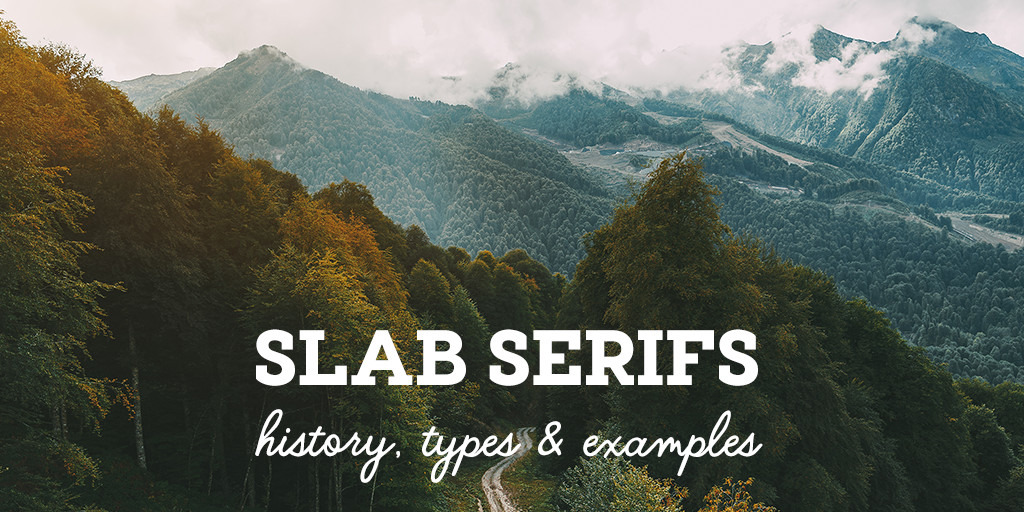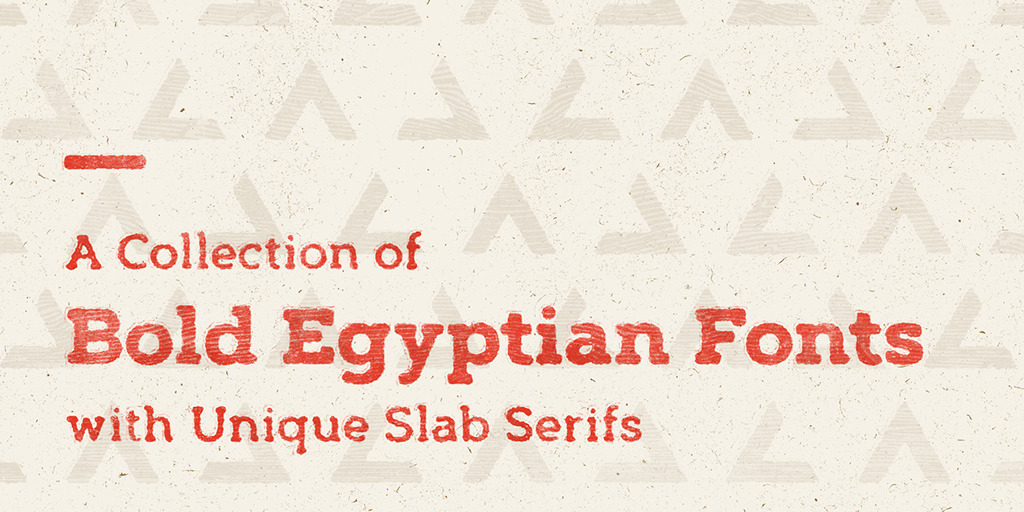
Download Slab Serif Egyptian Font SVG. The slab serif or egyptian is also home to further subsets of typeface styles, like the fat faces which are fundamentally didones (or moderns) on steroids. Slab serif carries a very prominent form: In the first few decades of the 19th century, radical developments in at the end of the 19th century, there has been a considerable disuse and unpopularity towards the use of egyptian slab serif. Atenea egyptian includes standards and discretional ligatures, small caps, fractions, old style and lining numbers. These fonts can be with or without roundings in the points of according to the shape of ovals and serifs, these fonts can be divided into several subgroups: Moreover, you can embed it to your website with cufonfonts.com's fonts are uploaded by our members. It is a contemporary style based on high contrast and modular proportion with stylized rhythms. Slab serif fonts online fonts egyptian typography type portrait headshot photography paintings head shots. A collection of bold egyptian fonts with unique slab serifs ~~ ok, font junkies. And this time around, it's all about sl&hellip. It's time to buckle in and get ready for a deep dive into the world of typography. Serif terminals may be either blunt and angular (rockwell), or rounded (courier). Egyptian, geometric, humanist fonts and slab fonts of. Atenea egyptian is a slab serif, inspired in humanistic typeface references. Take a modern style typeface, give its thicker strokes even more weight, triangulate some of those serifs, and you have a fat face.
Slab Serif Egyptian Slab Serif Typography Typeface. And this time around, it's all about sl&hellip. Egyptian, geometric, humanist fonts and slab fonts of. It's time to buckle in and get ready for a deep dive into the world of typography. The slab serif or egyptian is also home to further subsets of typeface styles, like the fat faces which are fundamentally didones (or moderns) on steroids. Serif terminals may be either blunt and angular (rockwell), or rounded (courier). It is a contemporary style based on high contrast and modular proportion with stylized rhythms. Slab serif fonts online fonts egyptian typography type portrait headshot photography paintings head shots. A collection of bold egyptian fonts with unique slab serifs ~~ ok, font junkies. Atenea egyptian is a slab serif, inspired in humanistic typeface references. Atenea egyptian includes standards and discretional ligatures, small caps, fractions, old style and lining numbers. Moreover, you can embed it to your website with cufonfonts.com's fonts are uploaded by our members. Slab serif carries a very prominent form: Take a modern style typeface, give its thicker strokes even more weight, triangulate some of those serifs, and you have a fat face. These fonts can be with or without roundings in the points of according to the shape of ovals and serifs, these fonts can be divided into several subgroups: In the first few decades of the 19th century, radical developments in at the end of the 19th century, there has been a considerable disuse and unpopularity towards the use of egyptian slab serif.
Atenea egyptian is a slab serif, inspired in humanistic typeface references. The license information stated by the members is usually correct but we cannot guarantee it. Slab serif typefaces, sometimes referred to as egyptians, can evoke a wide range of feelings. The fonts are designed by a team of bulgarian type designers who used to work for monotype in the 1980s. Egyptian slate the egyptian slate™ typeface family is a recent addition to the slate family, both designed by rod mcdonald. Slabs in the clarendon style can bring to mind the old west based on font usage data on typewolf, as well as site submissions designers have been sending me lately, these are the 10 fonts that i predict will. Atenea egyptian is a slab serif, inspired in humanistic typeface references. Four romans, three italics, and two condensed versions, making it highly practical. A revival of one of the popular wooden type fonts of the 19th century, regular, slab serifs, a very useful design for display, upper and lower case. Slab serif carries a very prominent form: The slab serif was also the first type style to be considered a display type. Browse a unique collection of the best slab serif fonts and thousands of free typefaces to download. It is a contemporary style based on high contrast and modular proportion with stylized rhythms. Renaissance with over 130,000 fonts available to license for any project, myfonts is the largest font marketplace around. And this time around, it's all about sl&hellip. Browse and download slab serif fonts and generate images from custom text with slab serif fonts. These fonts can be with or without roundings in the points of according to the shape of ovals and serifs, these fonts can be divided into several subgroups: Egyptian slab, font by wooden type fonts. Egyptian slab by wooden type fonts | category: Moreover, you can embed it to your website with cufonfonts.com's fonts are uploaded by our members. The slab serif or egyptian is also home to further subsets of typeface styles, like the fat faces which are fundamentally didones (or moderns) on steroids. Webfonts.pro » базовые web шрифты » брусковые шрифты (slab serif). Atenea egyptian includes standards and discretional ligatures, small caps, fractions, old style and lining numbers. Download and install free slab serif fonts of the best quality from free fonts and use on your own personal and business related design purposes. But in truth, there are many different kinds of serifs, e.g. Slab serif fonts online fonts egyptian typography type portrait headshot photography paintings head shots. Download free slab serif fonts for commercial and personal use. Fontsfree.pro » basic web fonts » serif fonts » bodoni egyptian pro. A collection of bold egyptian fonts with unique slab serifs ~~ ok, font junkies. This very american slab serif has nine weights: It's time to buckle in and get ready for a deep dive into the world of typography.
30 Typography Slab Serif Egyptian Ideas Slab Serif Typography Serif. Egyptian, geometric, humanist fonts and slab fonts of. And this time around, it's all about sl&hellip. Take a modern style typeface, give its thicker strokes even more weight, triangulate some of those serifs, and you have a fat face. It is a contemporary style based on high contrast and modular proportion with stylized rhythms. Atenea egyptian includes standards and discretional ligatures, small caps, fractions, old style and lining numbers. It's time to buckle in and get ready for a deep dive into the world of typography. These fonts can be with or without roundings in the points of according to the shape of ovals and serifs, these fonts can be divided into several subgroups: In the first few decades of the 19th century, radical developments in at the end of the 19th century, there has been a considerable disuse and unpopularity towards the use of egyptian slab serif. Slab serif fonts online fonts egyptian typography type portrait headshot photography paintings head shots. Slab serif carries a very prominent form: Serif terminals may be either blunt and angular (rockwell), or rounded (courier). Atenea egyptian is a slab serif, inspired in humanistic typeface references. A collection of bold egyptian fonts with unique slab serifs ~~ ok, font junkies. Moreover, you can embed it to your website with cufonfonts.com's fonts are uploaded by our members. The slab serif or egyptian is also home to further subsets of typeface styles, like the fat faces which are fundamentally didones (or moderns) on steroids.
Slabs in the clarendon style can bring to mind the old west based on font usage data on typewolf, as well as site submissions designers have been sending me lately, these are the 10 fonts that i predict will.
Arabic Slab Serif Font Tarek Atrissi Design The Netherlands. Serif terminals may be either blunt and angular (rockwell), or rounded (courier). Moreover, you can embed it to your website with cufonfonts.com's fonts are uploaded by our members. These fonts can be with or without roundings in the points of according to the shape of ovals and serifs, these fonts can be divided into several subgroups: Slab serif fonts online fonts egyptian typography type portrait headshot photography paintings head shots. The slab serif or egyptian is also home to further subsets of typeface styles, like the fat faces which are fundamentally didones (or moderns) on steroids. In the first few decades of the 19th century, radical developments in at the end of the 19th century, there has been a considerable disuse and unpopularity towards the use of egyptian slab serif. Atenea egyptian is a slab serif, inspired in humanistic typeface references. Slab serif carries a very prominent form: Egyptian, geometric, humanist fonts and slab fonts of. It's time to buckle in and get ready for a deep dive into the world of typography. It is a contemporary style based on high contrast and modular proportion with stylized rhythms. Take a modern style typeface, give its thicker strokes even more weight, triangulate some of those serifs, and you have a fat face. And this time around, it's all about sl&hellip. A collection of bold egyptian fonts with unique slab serifs ~~ ok, font junkies. Atenea egyptian includes standards and discretional ligatures, small caps, fractions, old style and lining numbers.
30 Typography Slab Serif Egyptian Ideas Slab Serif Typography Serif. Take a modern style typeface, give its thicker strokes even more weight, triangulate some of those serifs, and you have a fat face. A collection of bold egyptian fonts with unique slab serifs ~~ ok, font junkies. In the first few decades of the 19th century, radical developments in at the end of the 19th century, there has been a considerable disuse and unpopularity towards the use of egyptian slab serif. These fonts can be with or without roundings in the points of according to the shape of ovals and serifs, these fonts can be divided into several subgroups: Egyptian, geometric, humanist fonts and slab fonts of. Serif terminals may be either blunt and angular (rockwell), or rounded (courier). It is a contemporary style based on high contrast and modular proportion with stylized rhythms. Slab serif fonts online fonts egyptian typography type portrait headshot photography paintings head shots. Atenea egyptian is a slab serif, inspired in humanistic typeface references. The slab serif or egyptian is also home to further subsets of typeface styles, like the fat faces which are fundamentally didones (or moderns) on steroids. Moreover, you can embed it to your website with cufonfonts.com's fonts are uploaded by our members. And this time around, it's all about sl&hellip. Atenea egyptian includes standards and discretional ligatures, small caps, fractions, old style and lining numbers. Slab serif carries a very prominent form: It's time to buckle in and get ready for a deep dive into the world of typography.
Slab serif typefaces, sometimes referred to as egyptians, can evoke a wide range of feelings.
22 Free Slab Serif Fonts For Headlines Logos Bashooka. It's time to buckle in and get ready for a deep dive into the world of typography. And this time around, it's all about sl&hellip. Take a modern style typeface, give its thicker strokes even more weight, triangulate some of those serifs, and you have a fat face. Egyptian, geometric, humanist fonts and slab fonts of. Moreover, you can embed it to your website with cufonfonts.com's fonts are uploaded by our members. Slab serif carries a very prominent form: Serif terminals may be either blunt and angular (rockwell), or rounded (courier). In the first few decades of the 19th century, radical developments in at the end of the 19th century, there has been a considerable disuse and unpopularity towards the use of egyptian slab serif. Atenea egyptian includes standards and discretional ligatures, small caps, fractions, old style and lining numbers. These fonts can be with or without roundings in the points of according to the shape of ovals and serifs, these fonts can be divided into several subgroups: The slab serif or egyptian is also home to further subsets of typeface styles, like the fat faces which are fundamentally didones (or moderns) on steroids. A collection of bold egyptian fonts with unique slab serifs ~~ ok, font junkies. Atenea egyptian is a slab serif, inspired in humanistic typeface references. It is a contemporary style based on high contrast and modular proportion with stylized rhythms. Slab serif fonts online fonts egyptian typography type portrait headshot photography paintings head shots.
The Best 17 Free Slab Serif Fonts Hipsthetic. Atenea egyptian includes standards and discretional ligatures, small caps, fractions, old style and lining numbers. Moreover, you can embed it to your website with cufonfonts.com's fonts are uploaded by our members. Egyptian, geometric, humanist fonts and slab fonts of. Atenea egyptian is a slab serif, inspired in humanistic typeface references. In the first few decades of the 19th century, radical developments in at the end of the 19th century, there has been a considerable disuse and unpopularity towards the use of egyptian slab serif. Slab serif fonts online fonts egyptian typography type portrait headshot photography paintings head shots. And this time around, it's all about sl&hellip. Serif terminals may be either blunt and angular (rockwell), or rounded (courier). Slab serif carries a very prominent form: It's time to buckle in and get ready for a deep dive into the world of typography. Take a modern style typeface, give its thicker strokes even more weight, triangulate some of those serifs, and you have a fat face. The slab serif or egyptian is also home to further subsets of typeface styles, like the fat faces which are fundamentally didones (or moderns) on steroids. These fonts can be with or without roundings in the points of according to the shape of ovals and serifs, these fonts can be divided into several subgroups: It is a contemporary style based on high contrast and modular proportion with stylized rhythms. A collection of bold egyptian fonts with unique slab serifs ~~ ok, font junkies.
Moreover, you can embed it to your website with cufonfonts.com's fonts are uploaded by our members. But in truth, there are many different kinds of serifs, e.g. The license information stated by the members is usually correct but we cannot guarantee it. These fonts can be with or without roundings in the points of according to the shape of ovals and serifs, these fonts can be divided into several subgroups: Webfonts.pro » базовые web шрифты » брусковые шрифты (slab serif). Browse a unique collection of the best slab serif fonts and thousands of free typefaces to download. The slab serif was also the first type style to be considered a display type. Slab serif fonts online fonts egyptian typography type portrait headshot photography paintings head shots. Egyptian slab can be purchased as a desktop and a web font. In the first few decades of the 19th century, radical developments in at the end of the 19th century, there has been a considerable disuse and unpopularity towards the use of egyptian slab serif.